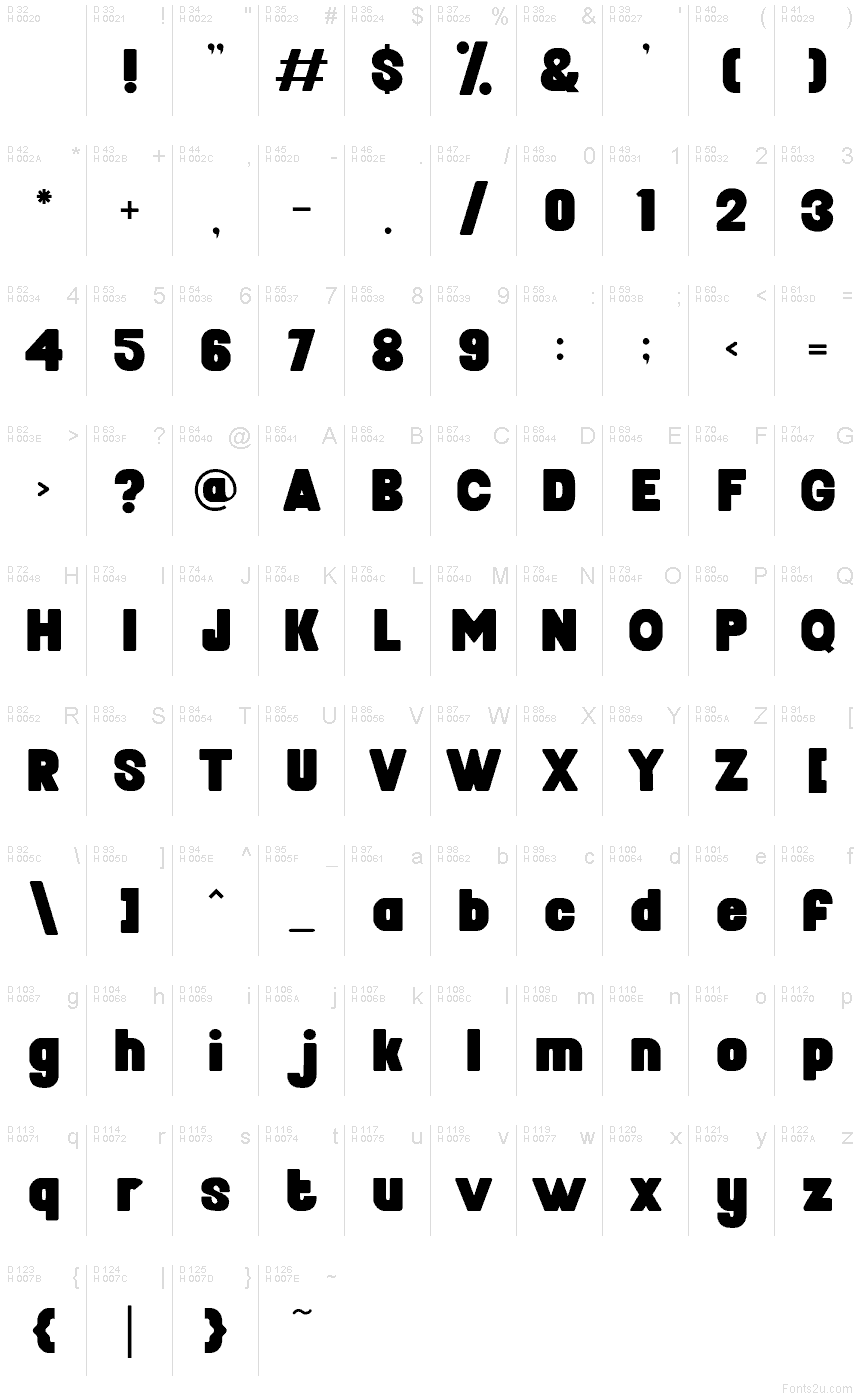
Wezer
Wezer font by PutraCetol Studio is a visually strong, modern, and bold display font with geometric influences. Its confident and minimalistic look is the reason it can easily stand out within every design project it is added to as an accent.